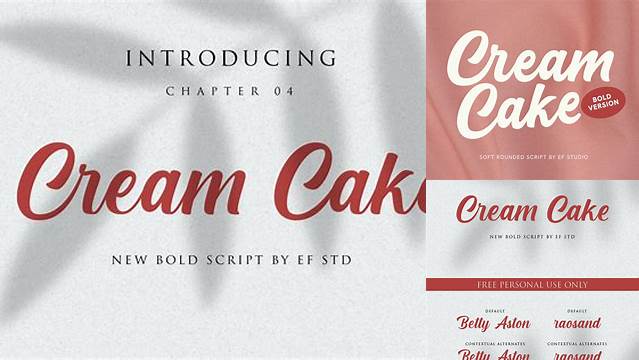
Hey guys! Are you looking to add a touch of sweetness and elegance to your designs? Look no further! The cream cake font is here to sprinkle some magic on your projects. Whether you're designing invitations, logos, or just want a cute font for your blog, this OTF 400 version is a fantastic choice. Let’s dive into everything you need to know about this delightful font and how to get it for free!
1. What is Cream Cake Font?
The cream cake font is a whimsical and charming typeface that resembles the elegant swirls and delicate frosting on a beautifully decorated cake. Its flowing lines and soft curves make it perfect for projects that need a touch of sweetness and sophistication. Think wedding invitations, birthday cards, or even branding for a bakery or café. The OTF (OpenType Font) format ensures compatibility across different platforms and software, while the 400 weight provides a balanced thickness that’s easy to read and visually appealing. When you're working on a project that needs a light, airy feel, this font is definitely one to consider. The free download option makes it accessible for everyone, whether you're a professional designer or just starting out.
2. Key Features of Cream Cake OTF 400
The cream cake font in the OTF 400 version comes packed with features that make it a versatile choice for various design needs. First and foremost, the OTF format itself is a huge advantage. OTF, or OpenType Font, is a modern font format that supports a wide range of characters and glyphs, ensuring your designs look polished and professional. The 400 weight strikes a perfect balance – it’s neither too thin nor too bold, making it readable in a variety of sizes and applications. This particular weight is ideal for headlines, body text, and even smaller details in your design. The flowing, elegant curves of the font give it a unique character, making your text stand out. Additionally, many versions of this font include ligatures and alternate characters, adding extra flair and customization options. The free download availability makes it an excellent resource for designers on a budget who still want high-quality typography in their projects.
4. Using Cream Cake Font in Graphic Design
When it comes to graphic design, the cream cake font is a versatile asset that can enhance a wide range of projects. Its elegant and whimsical style makes it particularly well-suited for designs that need a touch of sophistication and charm. Think about using it for wedding invitations, where the flowing lines can add a romantic feel. It's also perfect for branding materials for bakeries, cafes, or any business that wants to convey a sense of sweetness and warmth. In logo design, the unique character of the font can help your brand stand out. For social media graphics, cream cake font can add a personal and inviting touch. When using it in your designs, consider pairing it with simpler, more neutral fonts for body text to ensure readability. Experiment with different sizes and colors to see how the font interacts with other design elements. The key is to leverage its unique aesthetic to create visually appealing and memorable designs.
5. Best Projects for Cream Cake Font
The cream cake font truly shines in projects that call for a touch of elegance and whimsy. Imagine using it for wedding invitations, where its graceful curves can set a romantic tone. It’s also an excellent choice for birthday cards, party decorations, and other celebratory materials. For businesses, this font can add a unique flair to branding elements like logos, business cards, and website headers, especially for bakeries, cafes, or boutique shops. Consider using it in social media graphics to create eye-catching posts and stories that stand out. Bloggers and content creators can use cream cake font for titles and headings to give their content a polished and inviting look. Product packaging is another area where this font can excel, particularly for items like gourmet foods, handmade goods, or beauty products. The key is to use it in contexts where its delicate and sophisticated style can truly shine, making your designs memorable and appealing.
6. Pairing Cream Cake Font with Other Fonts
To make the cream cake font truly stand out, pairing it with the right complementary fonts is crucial. Because cream cake font is decorative and elegant, it works best when paired with simpler, more neutral fonts for body text. Think about using a classic sans-serif font like Helvetica or Arial for the main paragraphs. These fonts provide a clean and readable contrast, allowing the cream cake font to take center stage in headings and titles. Another great option is to pair it with a simple serif font like Times New Roman or Garamond, which can add a touch of traditional elegance without overpowering the design. When choosing a pairing font, consider the overall tone and style of your project. For a modern and minimalist look, stick with clean sans-serif fonts. If you’re aiming for a more classic and sophisticated feel, a serif font might be the way to go. Experiment with different font weights and sizes to create a visual hierarchy that guides the reader’s eye. The goal is to create a harmonious balance between the decorative cream cake font and its supporting typeface, ensuring your design is both beautiful and readable.
7. Designing Logos with Cream Cake OTF 400
Designing a logo with the cream cake font can add a distinctive and memorable touch to your brand identity. This font's elegant and whimsical nature makes it particularly suitable for businesses that want to convey a sense of sweetness, creativity, or sophistication. Think of bakeries, cafes, boutique shops, or even creative agencies. When using cream cake font in your logo, consider its unique characteristics. The flowing lines and delicate curves can create a sense of movement and grace. Keep the design simple and uncluttered to ensure the font remains legible and impactful. Experiment with different font weights and sizes to see what works best for your brand. You might also want to explore adding a unique symbol or graphic element to complement the font. The color palette you choose can also play a significant role in the overall look and feel of your logo. Soft, pastel colors can enhance the font's sweetness, while bolder colors can create a more modern and eye-catching effect. Ultimately, a well-designed logo using cream cake font can help your brand stand out and make a lasting impression.
8. Creating Invitations with Cream Cake Font
Creating invitations with the cream cake font is a fantastic way to add a touch of elegance and charm to your special events. Whether it's a wedding, birthday party, baby shower, or any other celebration, this font can help set the perfect tone. Its graceful curves and whimsical style make it particularly well-suited for formal and semi-formal occasions. When designing your invitations, think about the overall theme and color scheme of your event. Cream cake font pairs beautifully with soft, pastel colors for a romantic and delicate look. You can also use metallic accents like gold or silver to add a touch of glamour. Consider the layout of your invitation as well. Keep the design clean and uncluttered to ensure the font remains readable. Use cream cake font for headings and key information like the names of the hosts, the date, time, and location. Pair it with a simpler font for the body text to maintain readability. Don't forget to add any special details or instructions for your guests. With a little creativity, you can create stunning invitations that reflect the unique style of your event.
9. Using Cream Cake Font for Social Media Graphics
Using the cream cake font for social media graphics can significantly enhance the visual appeal of your posts and stories. This font’s charming and elegant style makes it perfect for adding a touch of personality to your content. Whether you’re promoting a product, sharing an announcement, or simply engaging with your followers, cream cake font can help your posts stand out. Think about using it for headings, captions, and quote graphics to grab attention. Experiment with different colors and sizes to see what works best with your brand aesthetic. Consider adding visual elements like images or illustrations to complement the font and create a cohesive look. When designing social media graphics, remember to keep the text concise and easy to read. Use cream cake font strategically to highlight key messages and pair it with a simpler font for longer text blocks. Consistency is key when it comes to social media branding, so try to use cream cake font in a consistent way across all your platforms. With a little creativity, you can create eye-catching social media graphics that resonate with your audience.
30. Mastering Cream Cake Font: Tips and Tricks from the Pros
Mastering the cream cake font involves understanding its unique characteristics and learning how to use it effectively in your designs. Professionals often recommend starting by experimenting with different pairings. Cream cake font works best when paired with simpler, more neutral fonts for body text, such as sans-serif or clean serif fonts. This creates a visual hierarchy and ensures readability. Another tip from the pros is to use cream cake font sparingly. It’s most impactful when used for headings, titles, and short phrases, where its elegance can shine without overwhelming the design. Pay attention to the font size and spacing. Make sure the cream cake font is large enough to be easily read, but not so large that it becomes distracting. Adjust the letter and line spacing to prevent crowding and improve legibility. Experiment with different colors and textures to see how they interact with the font. Metallic accents or subtle gradients can add a touch of luxury. Don’t be afraid to explore the glyphs and ligatures available in cream cake font. These special characters can add a unique and personalized touch to your designs. Finally, always seek feedback from others and be willing to iterate on your designs. By following these tips and tricks from the pros, you can master the cream cake font and create stunning typography that elevates your projects.